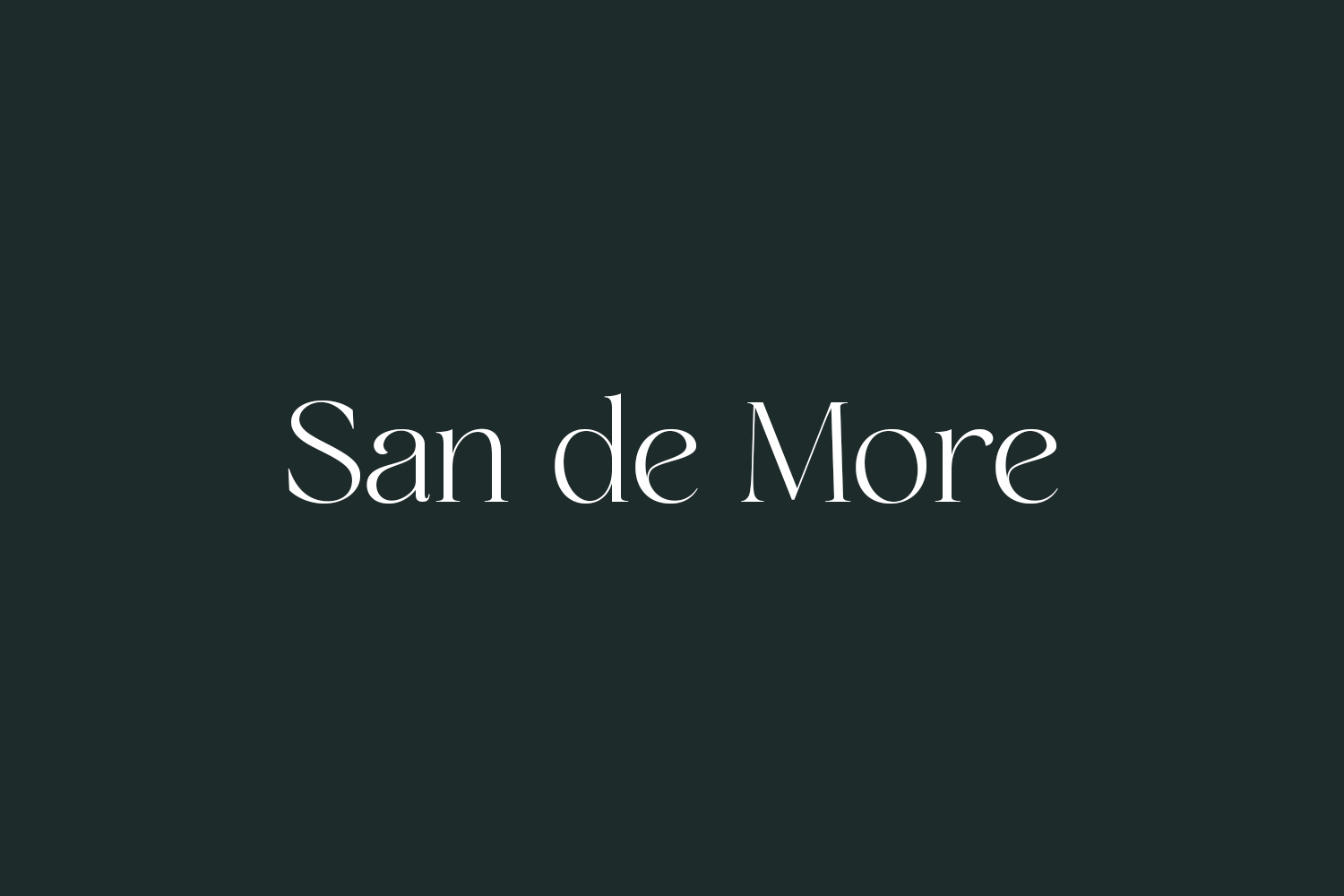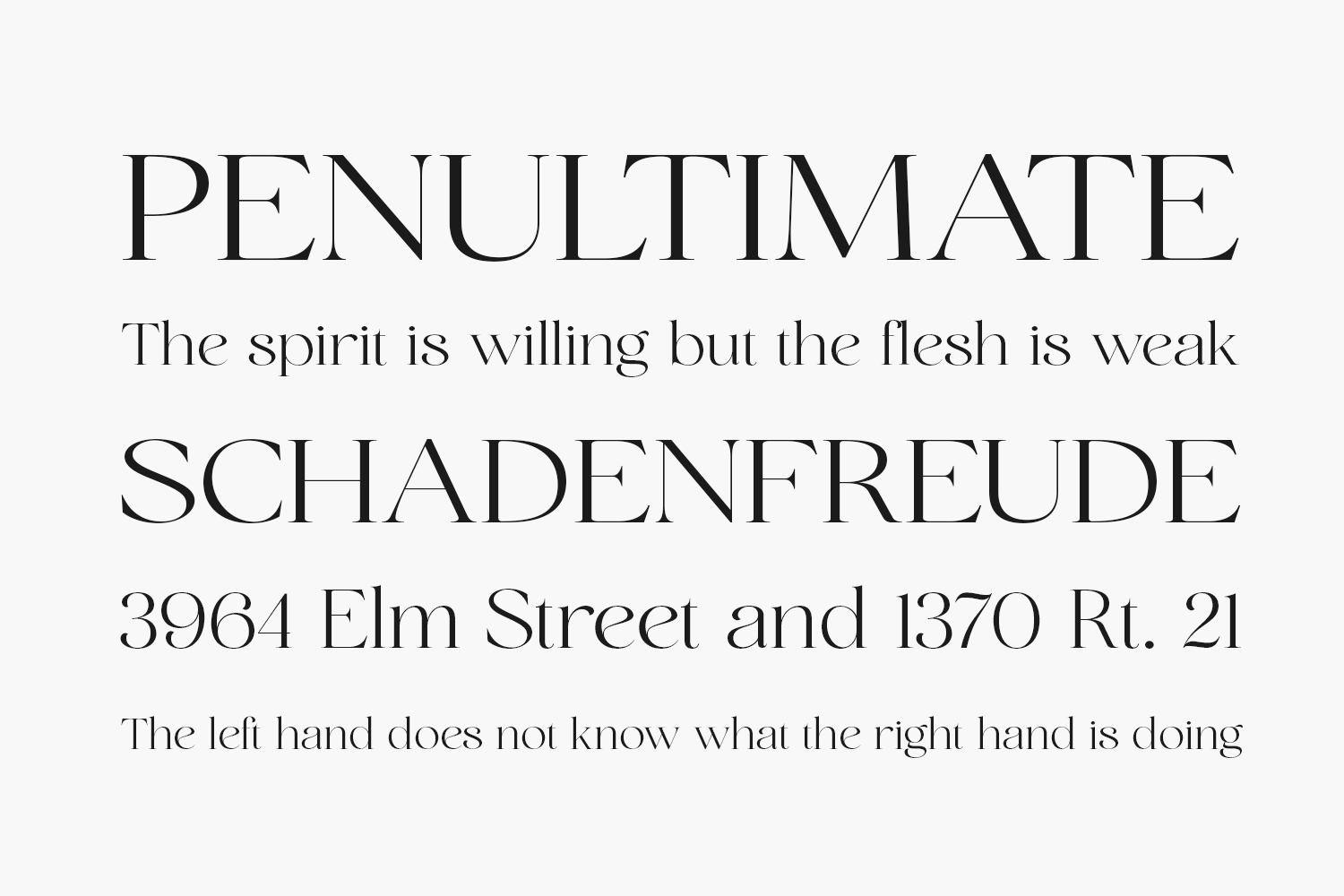
San de More Free Font is a fashionable, modern, and elegant serif font with some sexy stylish extras. This font is perfect for branding and logo design. You will get classy, elegant, and certainly unique logos with this font. San de More Free Font is free for personal use only. Please purchase the full version for commercial use.
Designed by Kereatype Studio